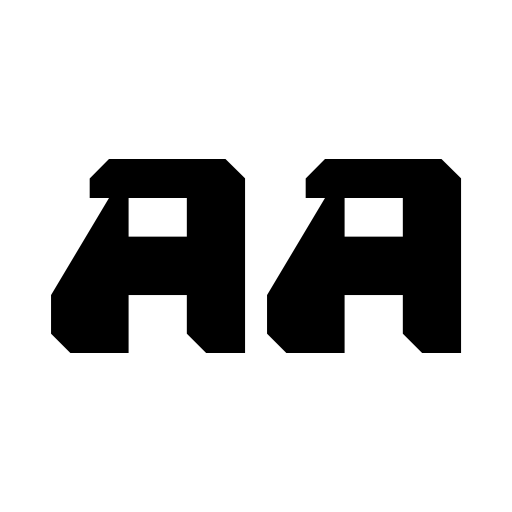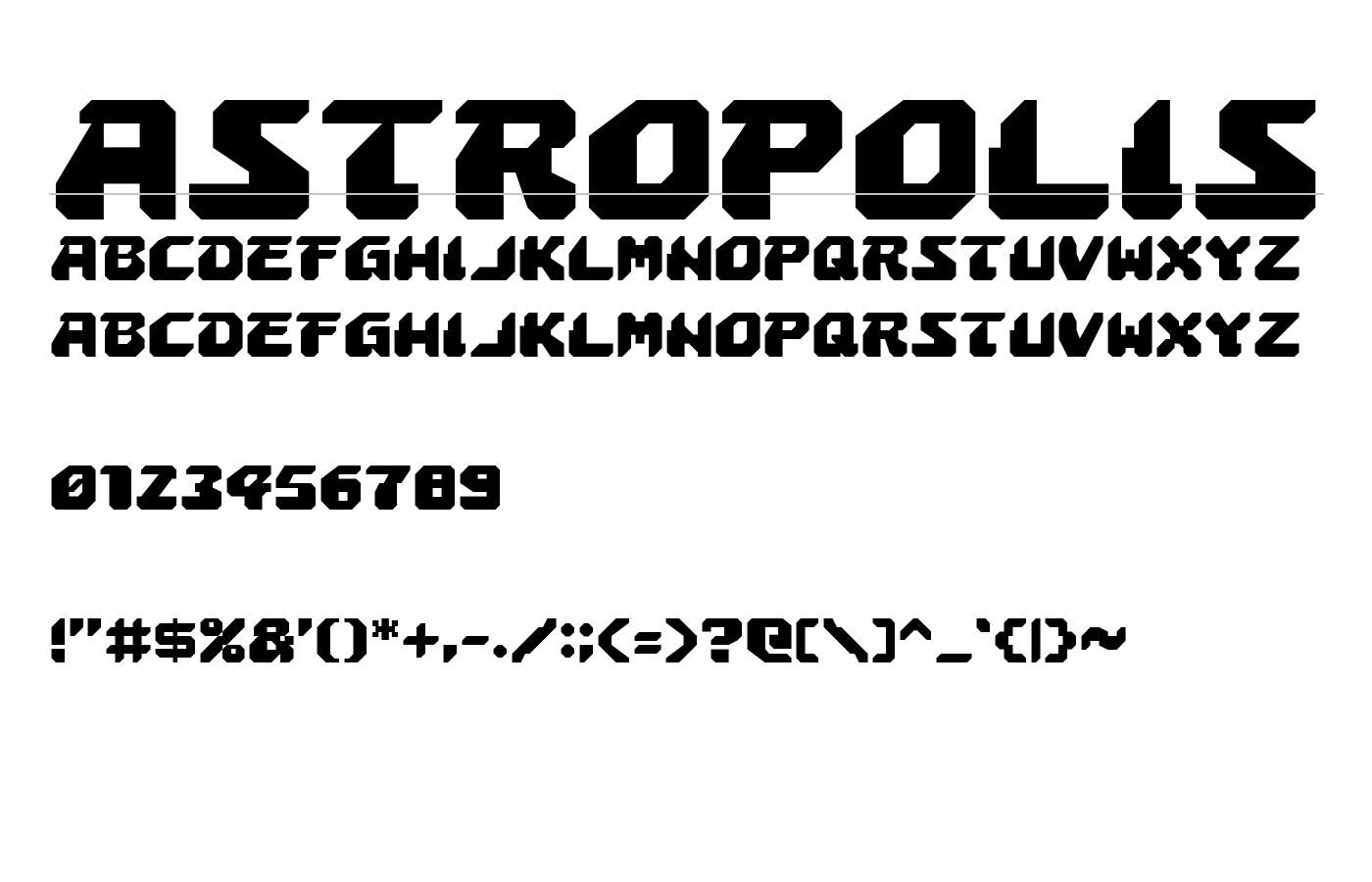
Astropolis is a bold, geometric sans serif typeface with a distinctly futuristic and industrial feel. Its strong, angular letterforms and sharp corners give it a modern, tech-inspired personality, making it ideal for eye-catching headlines, logos, and branding that want to convey strength and innovation. This font works best in digital or print environments where a bold, adventurous aesthetic is desired, such as gaming, technology, or sci-fi themed projects.
Astropolis Font
About Astropolis Font